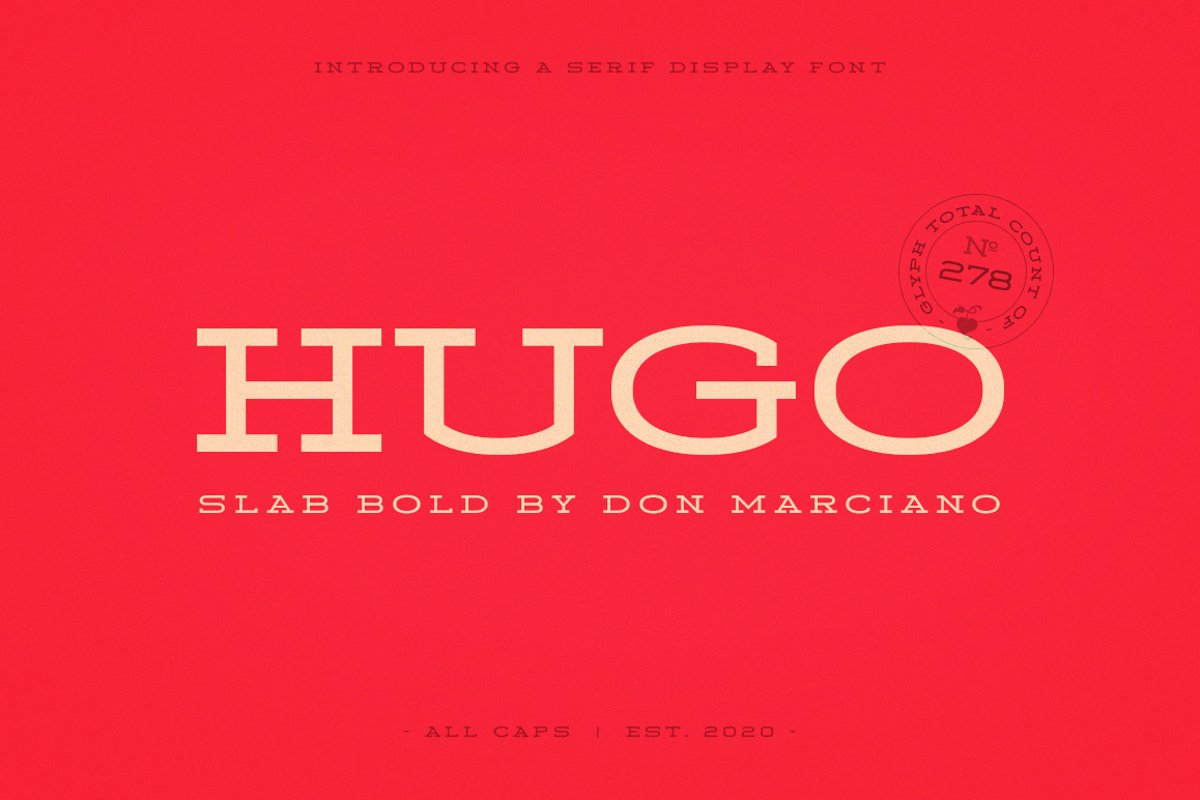
Hugo Slab Serif Bold
HugoSlab-Bold
Hugo Slab is a wide bold weight style font, designed originally for a family Saturday BBQ dinner invitation, that developed into a whole alphabet, the font is clean and elegant that works very well with brand development, great for the food industry related design. An OTF file format with a total count of 278 glyphs, all caps cases. I’ll appreciate your support if possible. Enjoy!